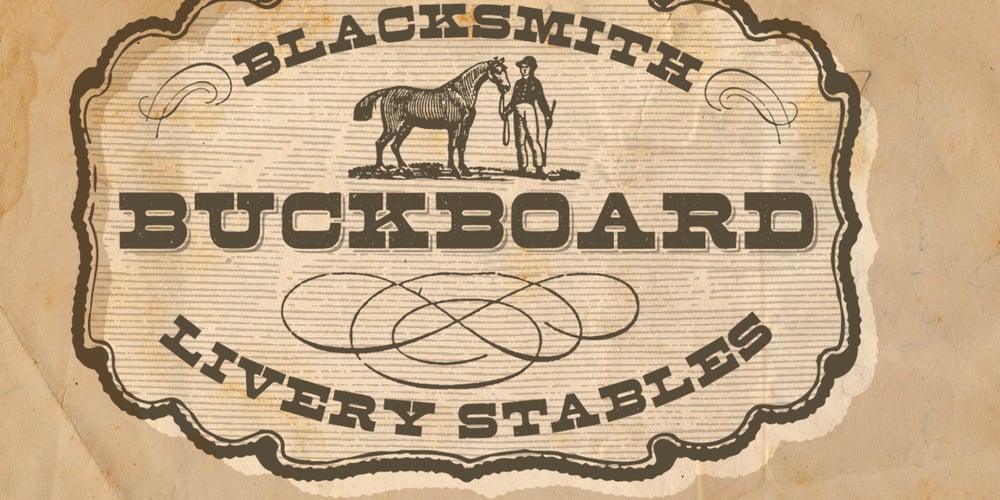
Buckboard Font Family was designed by Stephen Miggas and published by Aerotype. Buckboard contains 3 styles and family package options. The Buckboard family uses the OpenType ligature feature to substitute a unique pair of distressed characters when any upper or lower case letter is keyed twice in a row. The Buckboard Shadow font can be overlapped with Buckboard Regular to color the drop shadow separately. All fonts also support Eastern European Latin and Baltic languages.